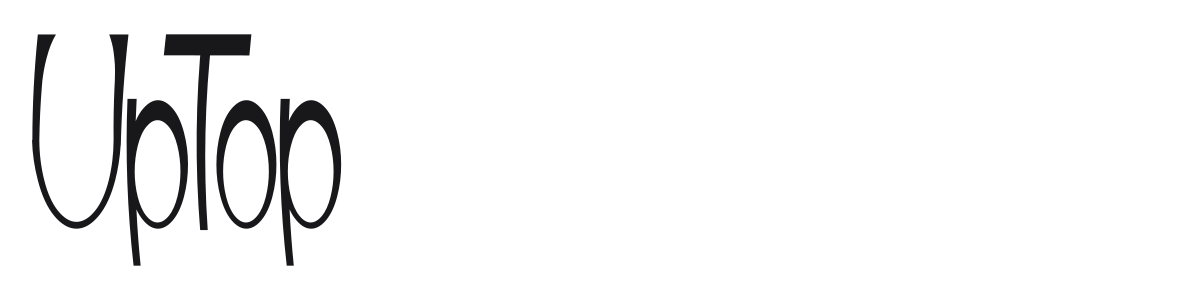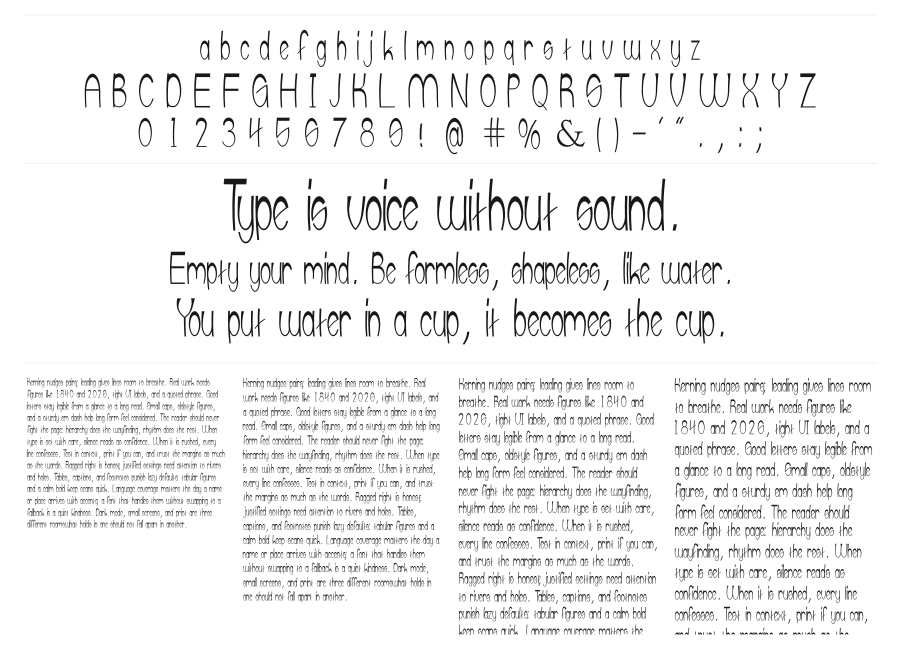
UpTop
UpTop is a tall, condensed sans-serif with a lanky, quirky personality. Its near-monoweight strokes carry subtle irregular curves and unexpected terminal details that give it a handcrafted, off-beat charm. Great for headlines, packaging, and any project that needs casual personality without going fully script.